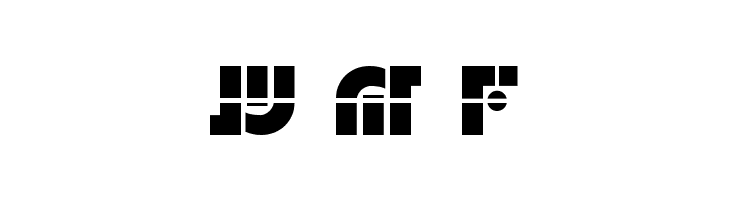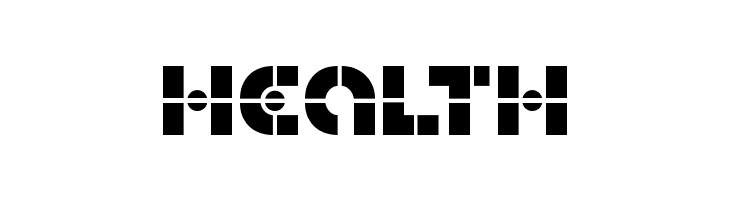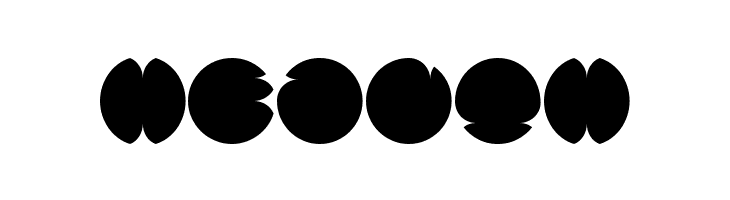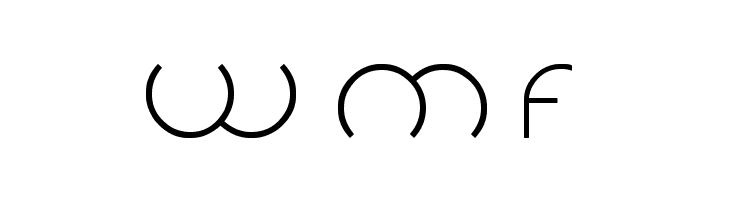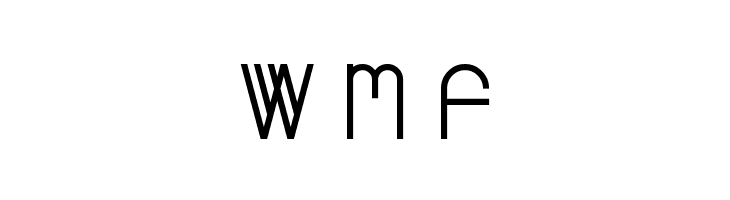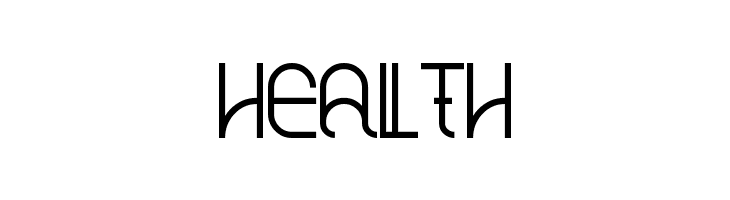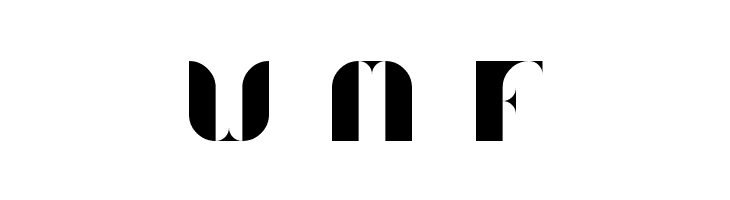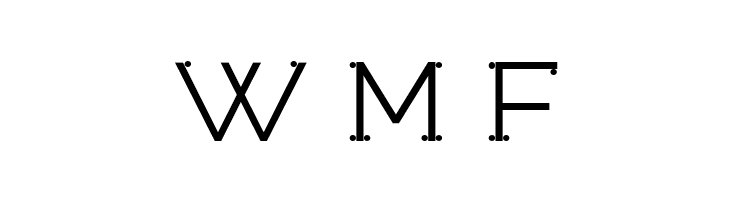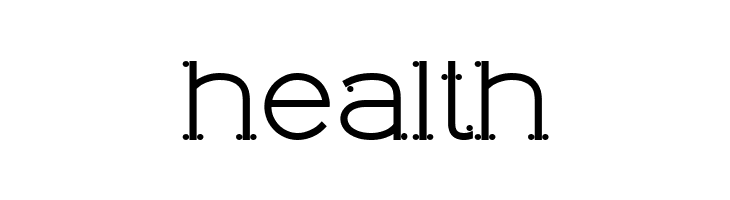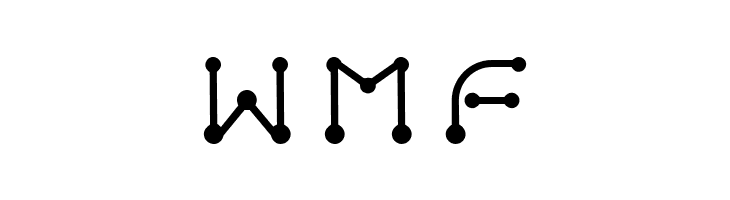
A bold, futuristic font with geometric shapes and circular cutouts, ideal for modern designs.
A bold, playful font with circular, cut-out designs ideal for creative projects.
A modern font with circular motifs and a sleek, minimalistic design.
A modern, geometric font with clean, circular lines and consistent stroke widths.
A modern, geometric font with rounded edges and circular cutouts, offering a playful yet clean aesthetic.
A bold, geometric font with artistic negative space and circular elements.
A playful, decorative font with circular accents on each stroke.
A modern, geometric font with lines connected by circular nodes.
A bold, decorative font with interconnected lines and circular nodes, offering a futuristic look.
A decorative font with vintage burlesque flair, featuring circular embellishments on each character.